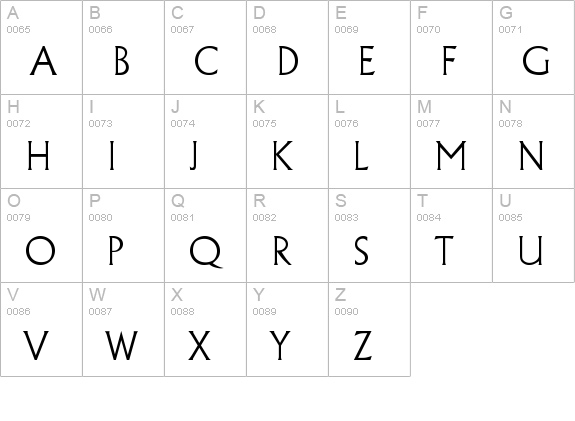
Adelon-Light Font Details
Adelon-Light is a refined, elegant variant in the Adelon typeface family \xE2\x80\x94 well suited to elegant body text, refined sub-headings, and luxury branding.
Adelon-Light is a stunning and elegant font that exudes sophistication and modernity. With its clean lines and balanced proportions, this font is perfect for a wide range of design projects, from branding to editorial design. The delicate serifs and graceful curves of Adelon-Light create a sense of refinement and luxury, making it a versatile choice for both print and digital applications. Best of all, Adelon-Light is available for free download at FontsMarket.com. This means that you can easily access this exquisite font and incorporate it into your projects without any cost. Whether you're working on a professional design project or a personal creative endeavor, Adelon-Light is sure to elevate your work with its timeless beauty and sophistication. Download it today and add a touch of elegance to your designs.